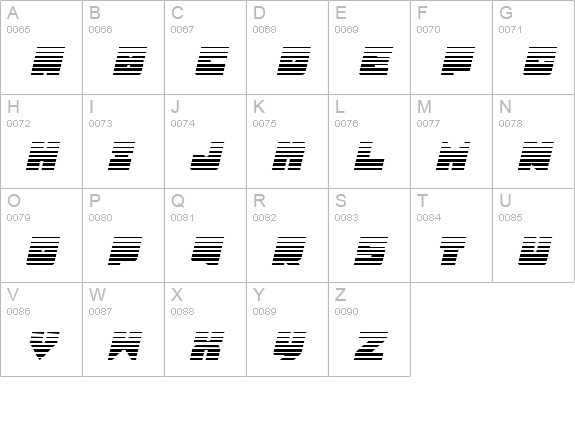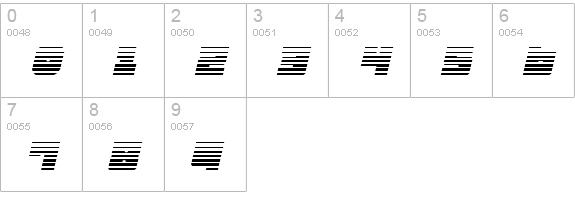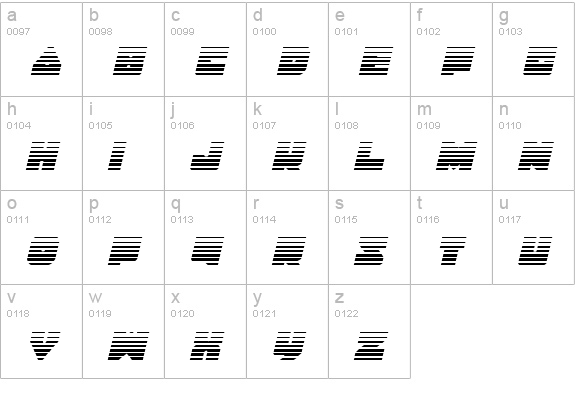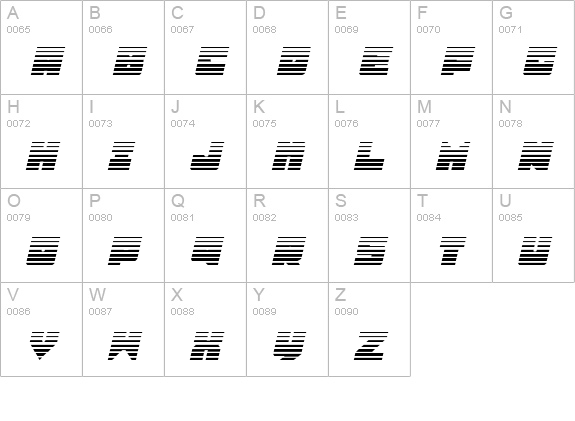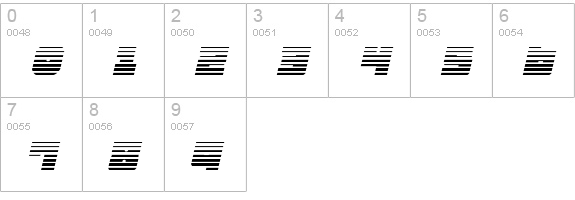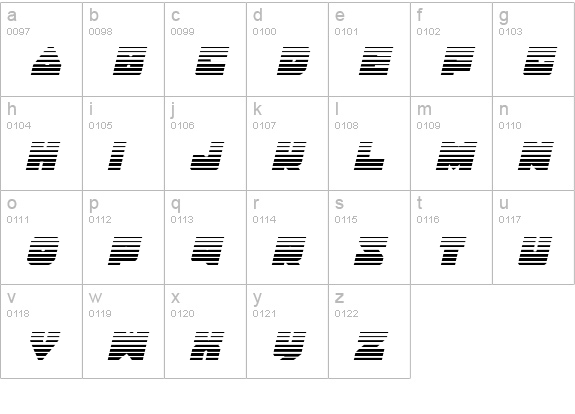
Lobo Tommy Gradient Italic is a distinctive, italic variant in the Lobo typeface family \xE2\x80\x94 well suited to design and typography projects.
Introducing the exquisite and stylish Lobo Tommy Gradient Italic font, a modern typeface that exudes sophistication and elegance. This unique font features a beautiful gradient effect that adds a touch of visual interest to any design project. The italicized style of Lobo Tommy Gradient Italic font brings a sense of dynamism and flair, making it perfect for adding a contemporary touch to your creations. The versatility of Lobo Tommy Gradient Italic font makes it suitable for a wide range of design applications, from branding and advertising to editorial and packaging. Whether you're working on a logo, website, poster, or any other project, this font is sure to make a statement and leave a lasting impression on your audience. Best of all, Lobo Tommy Gradient Italic font is available for free download at FontsMarket.com. This means that you can easily access this stunning font and use it in your projects without any cost. Don't miss out on the opportunity to elevate your designs with the striking Lobo Tommy Gradient Italic font today!